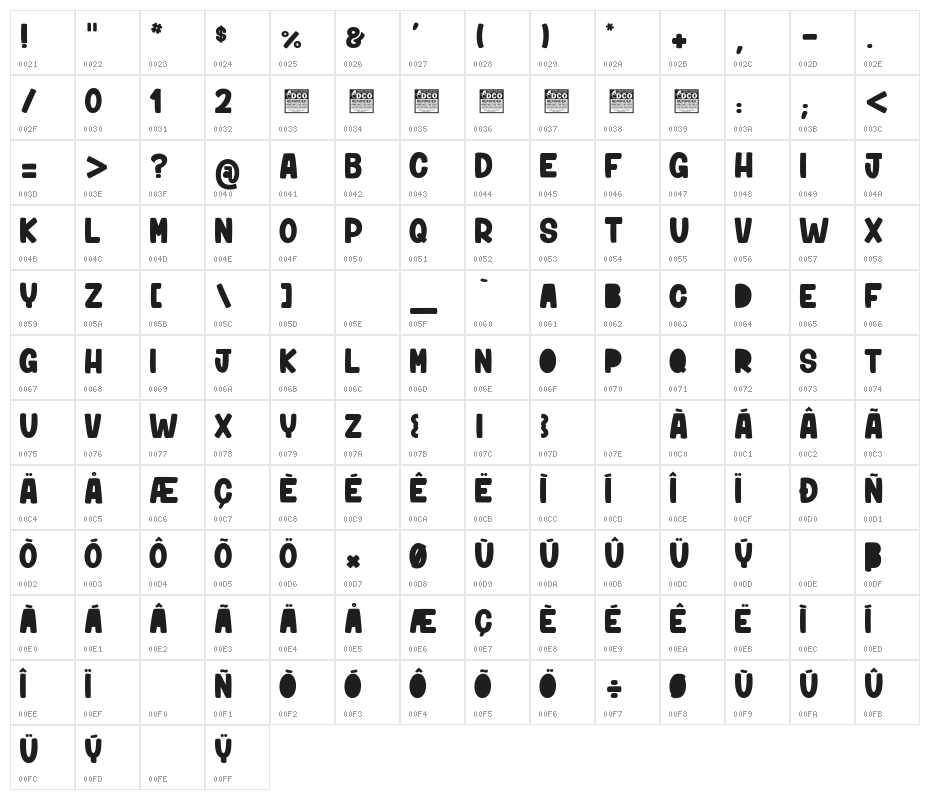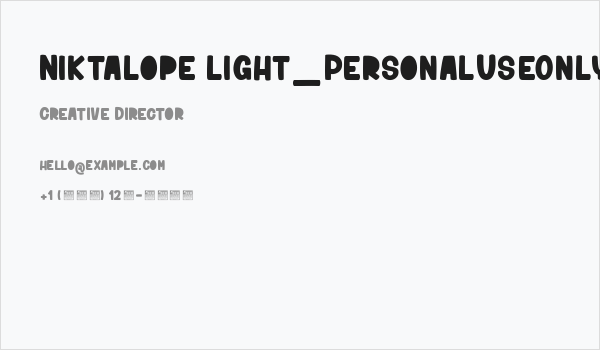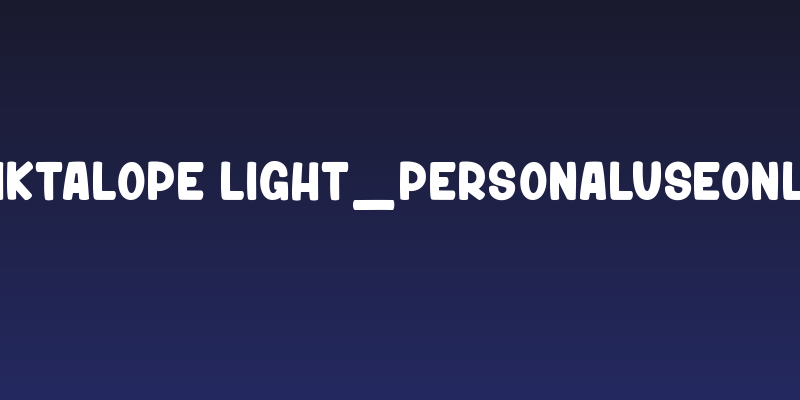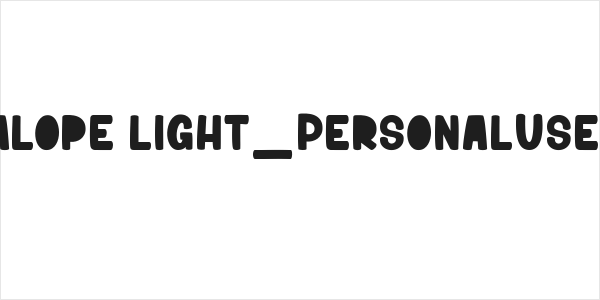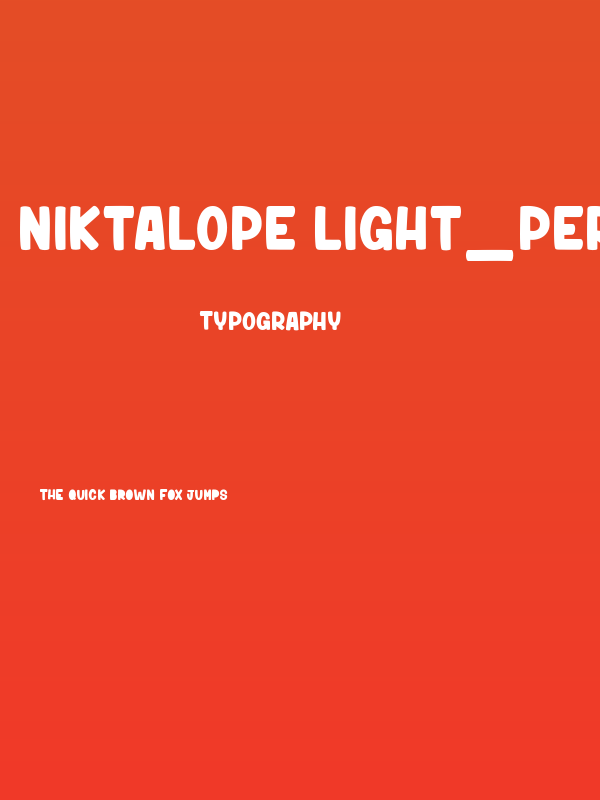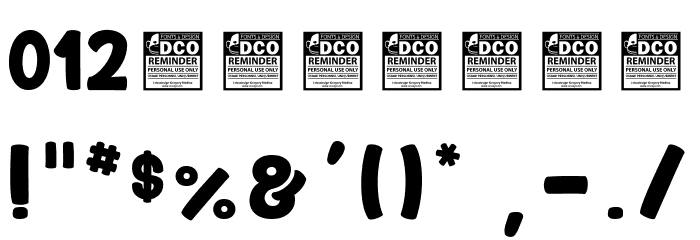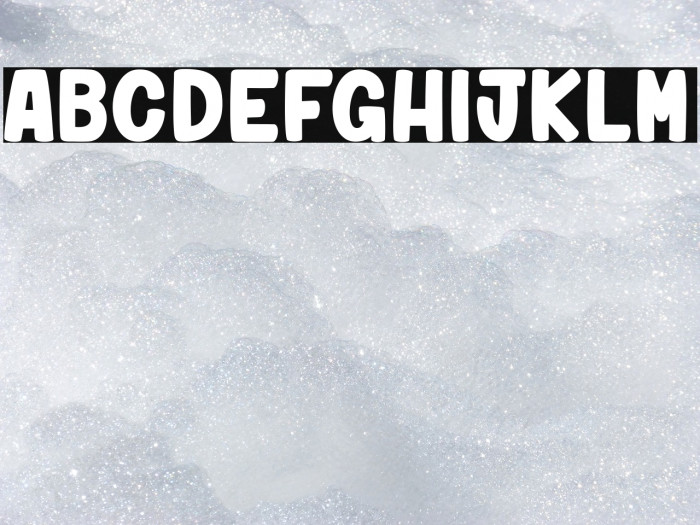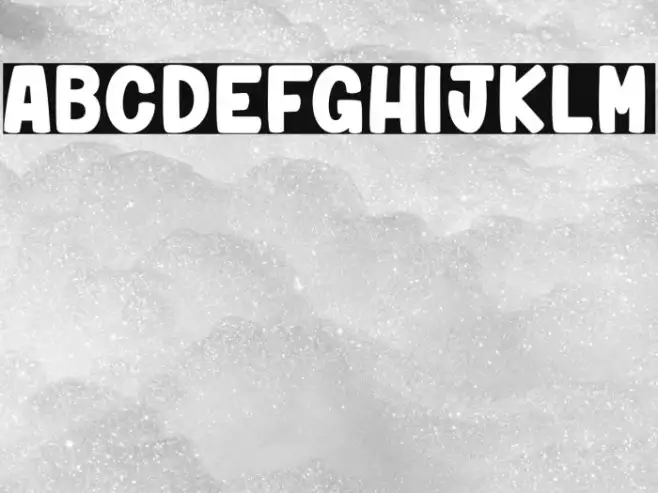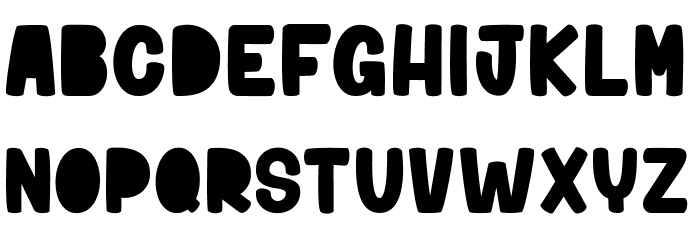
Niktalope light_PersonalUseOnly Font
Niktalope light_PersonalUseOnly Description
This font features bold, rounded characters with a playful and friendly appearance. The letters are uniformly thick, giving a consistent and cohesive look across all characters. The rounded edges and lack of sharp angles contribute to its approachable and informal style. The numbers and special characters maintain the same boldness and rounded design, ensuring visual harmony throughout. This font is well-suited for projects that require a fun and engaging aesthetic, such as children's books, playful branding, or casual event invitations.
| Proposed Projects | Ideal for children's books, playful branding, casual event invitations, and posters. |